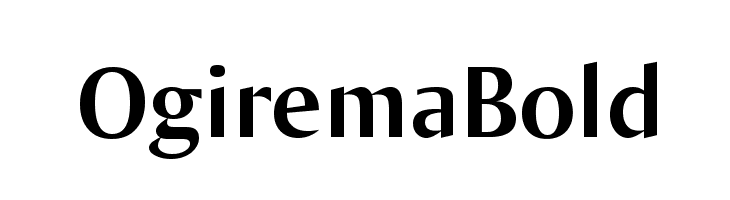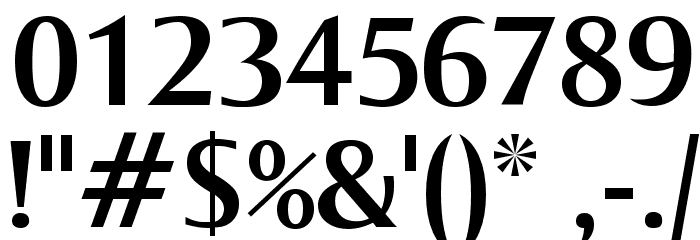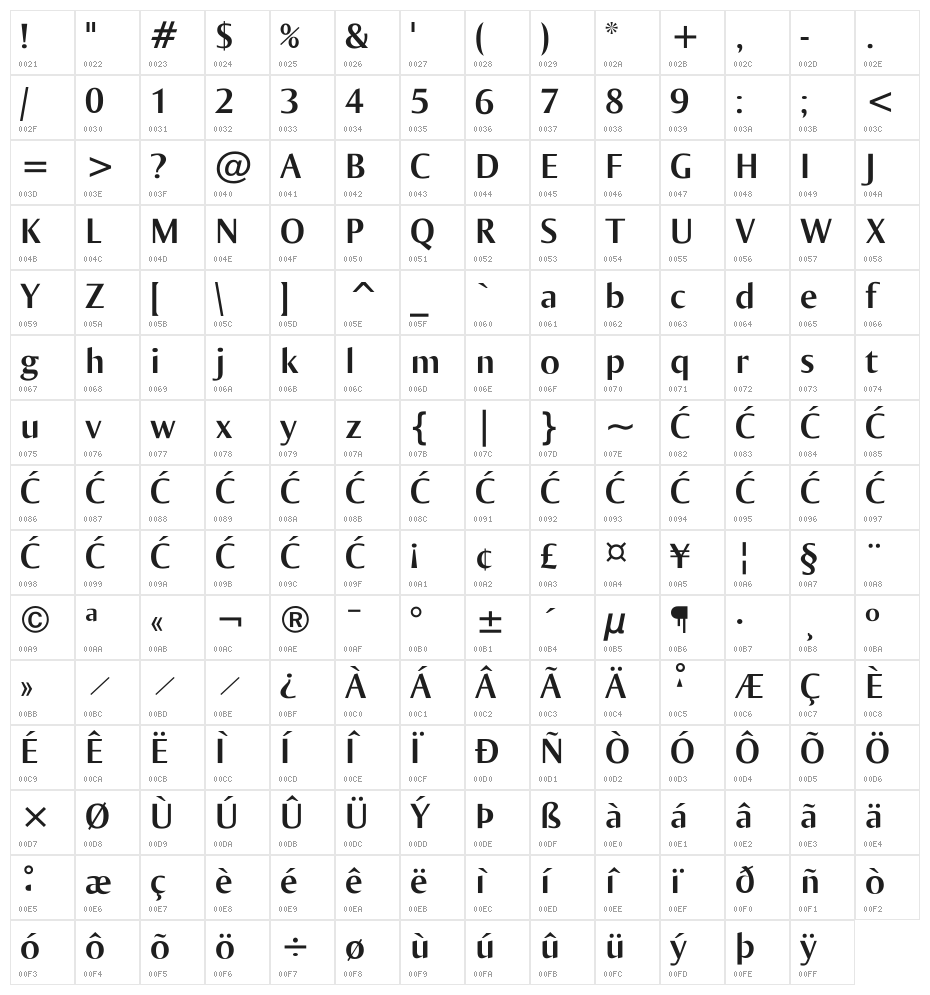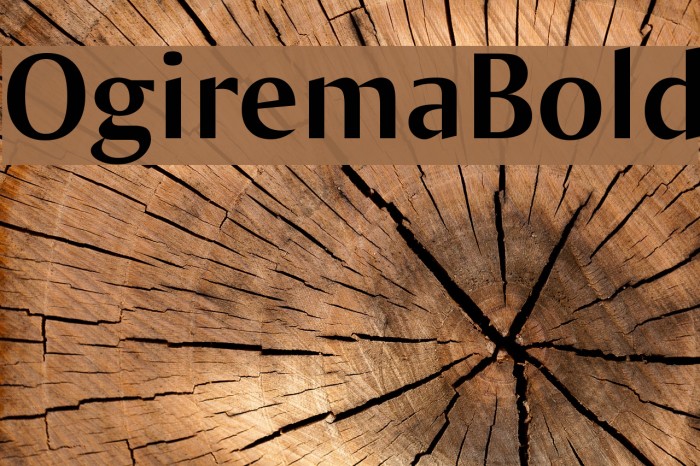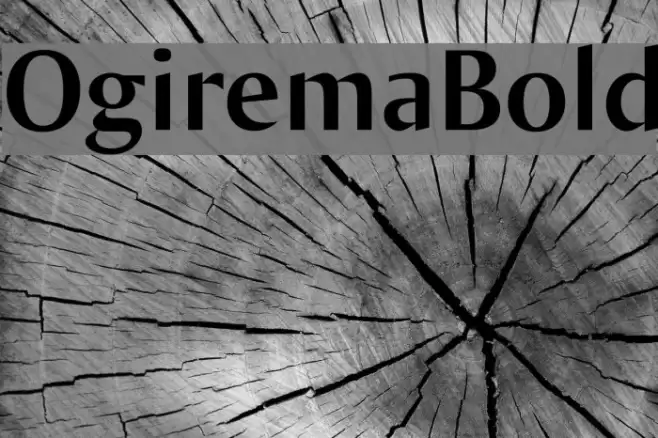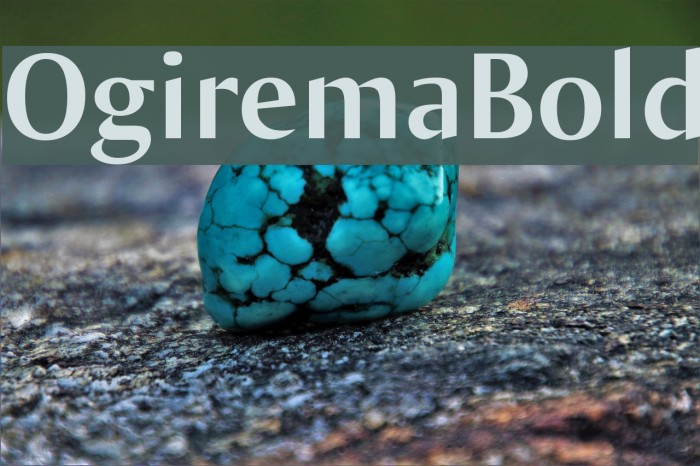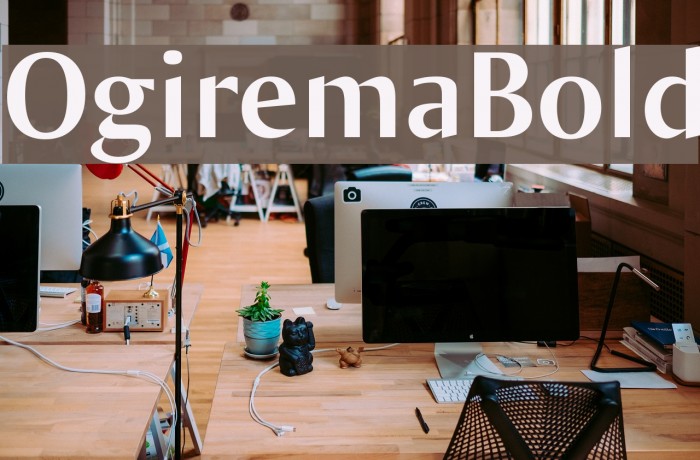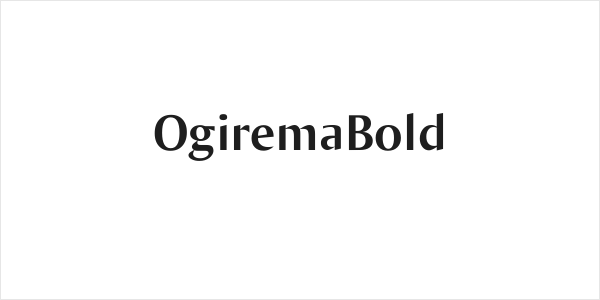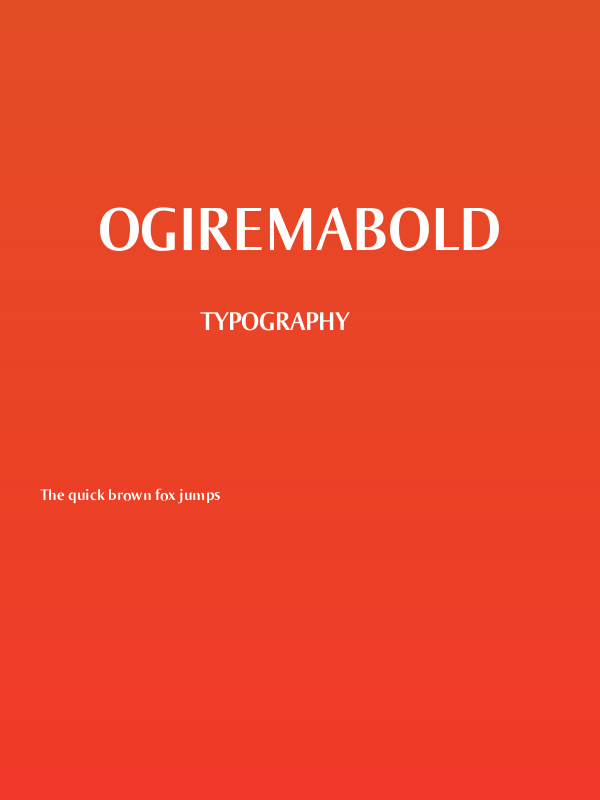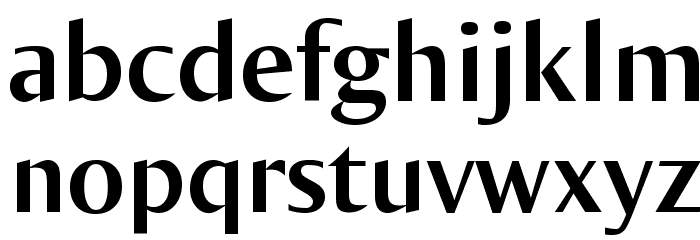
OgiremaBold Font
OgiremaBold Description
This typeface exhibits a bold and commanding presence with its strong, clean lines and slightly condensed form. The uppercase letters are uniform in height, providing a sense of stability and authority. The lowercase letters maintain a consistent style with subtle curves that add a touch of elegance. The numerals are clear and legible, making them suitable for various applications. Special characters are well-defined, ensuring versatility in design. The overall appearance is modern and professional, making it ideal for impactful headlines and branding.
| Proposed Projects | Ideal for branding, headlines, posters, and any project requiring a bold, professional look. |